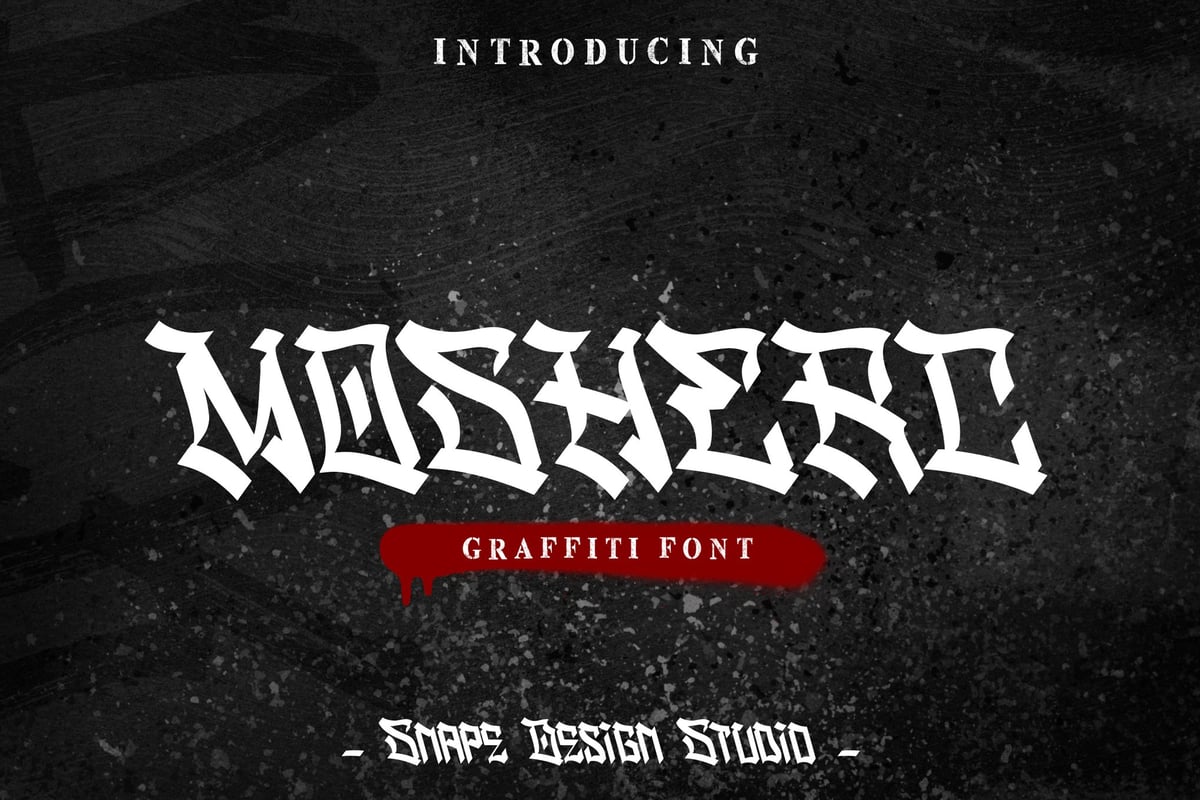
Mosherc - Graffiti Font
Transform your designs with MOSHERC, a bold graffiti-inspired display font that captures authentic street art energy. This distinctive typeface draws inspiration from classic street art calligraphy and graffiti tag styles, making it the perfect choice for projects that need an edgy, urban aesthetic. Whether you're working on movie titles, documentaries, film projects, logos, posters, gaming graphics, book covers, headlines, or any design that demands attention, MOSHERC delivers the authentic str...